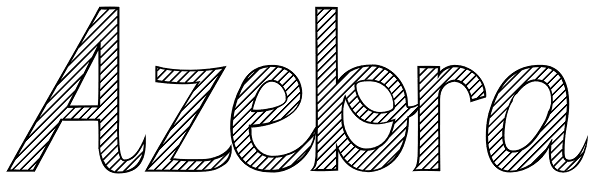
Azebra
Azebra is an elegant connected letter cursive script arriving with a family of detailed & artistic styles. Azebra features diagonal hatched texture, in extruded & shadow variations. Azebra is extended, containing West European diacritics...
Azebra 3D
Azebra Shadow
Azebra Stencil
Azebra